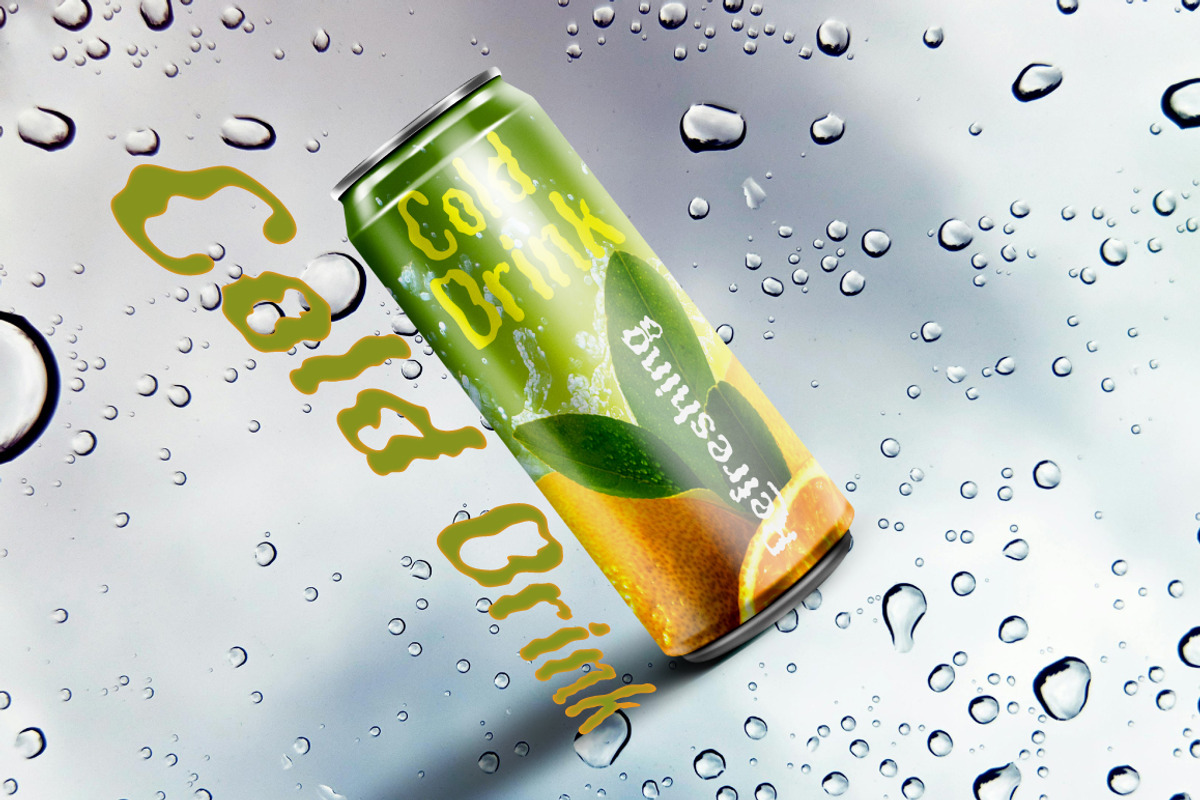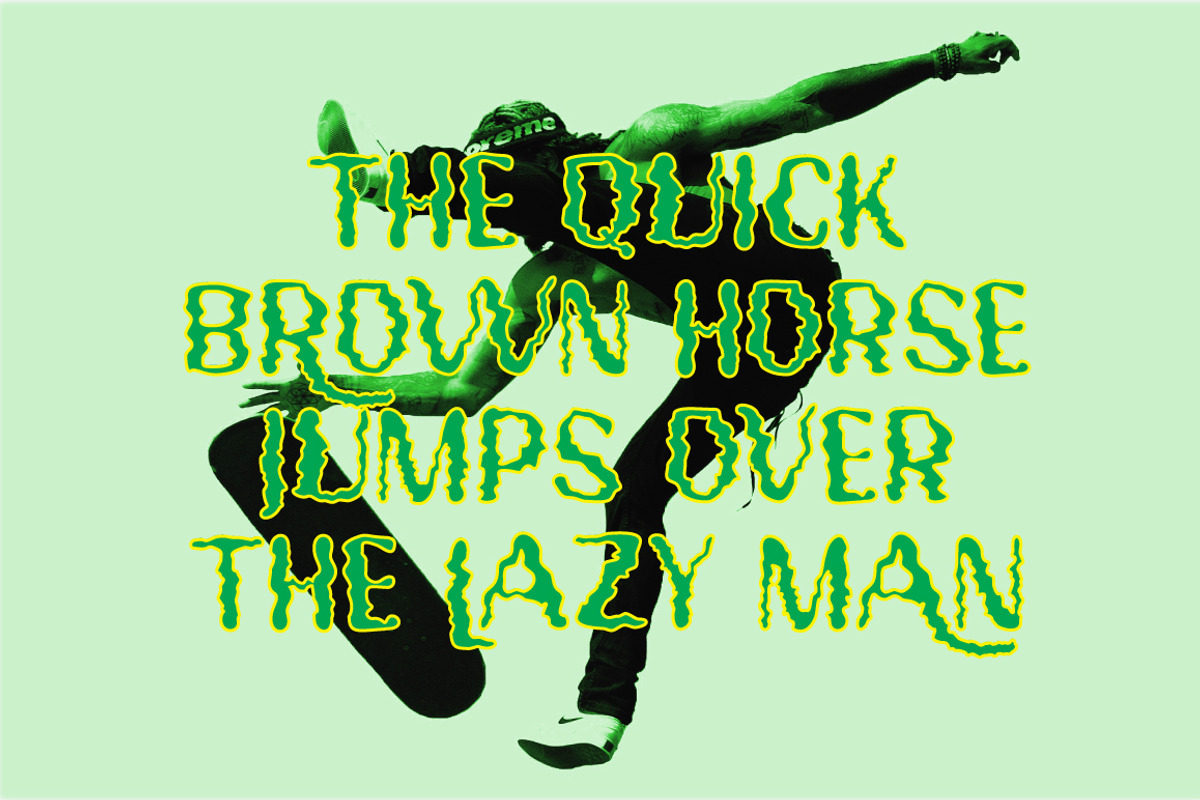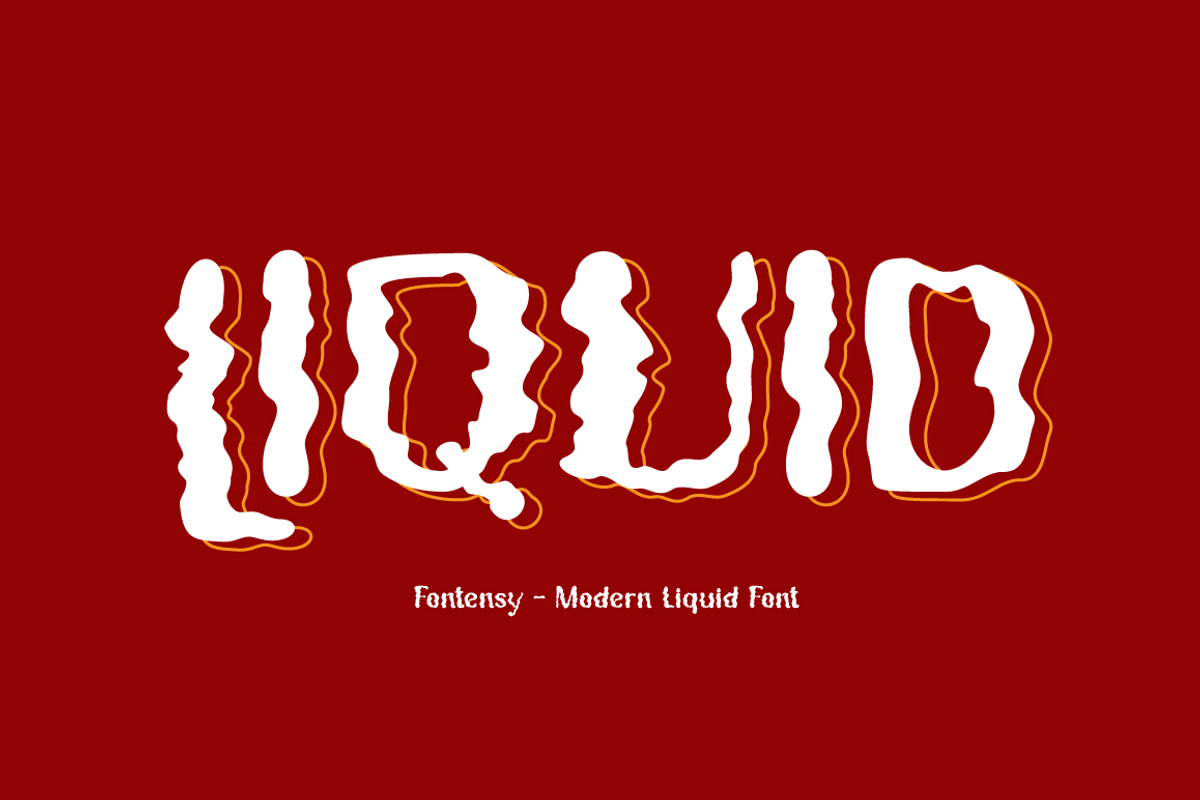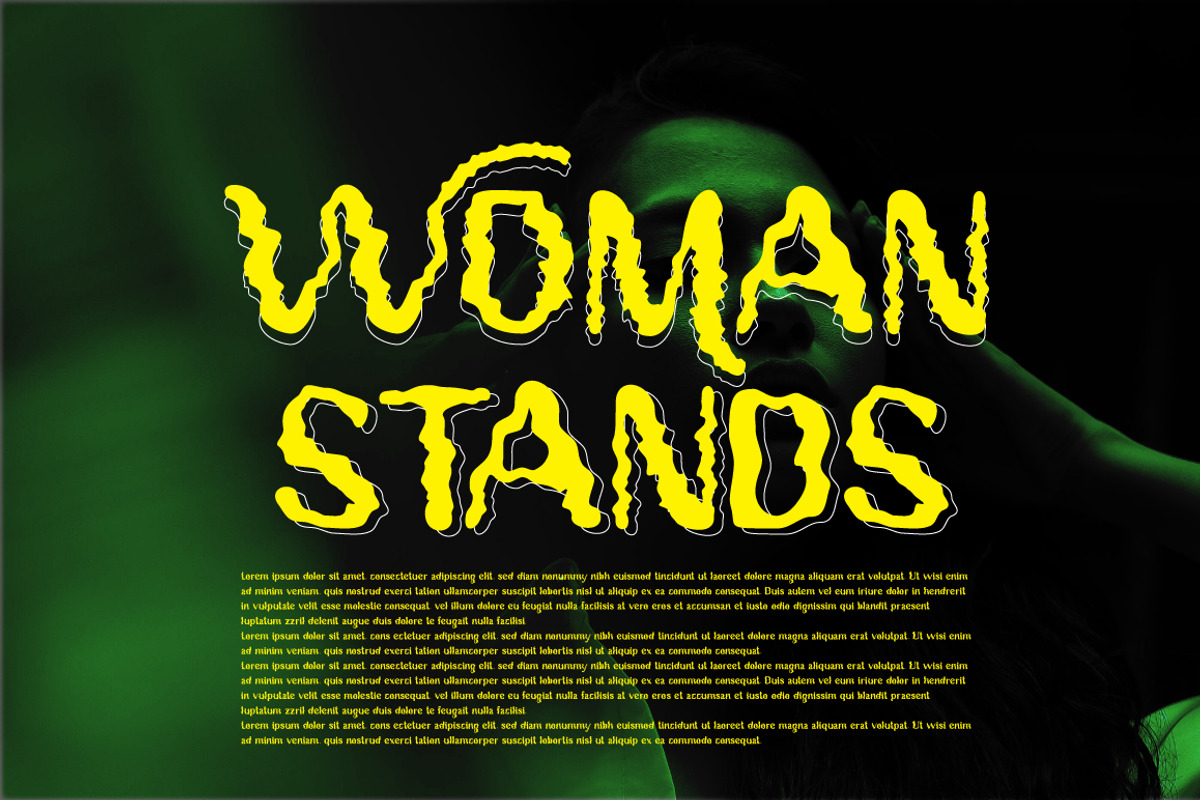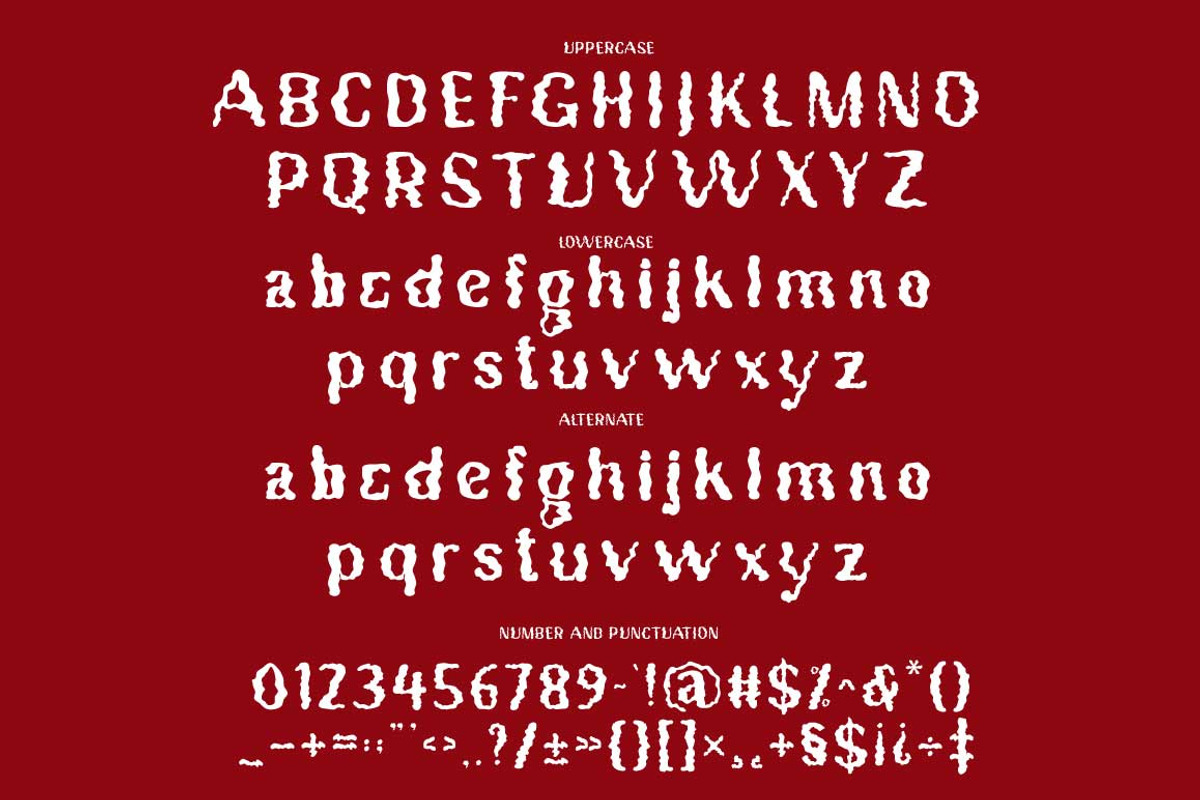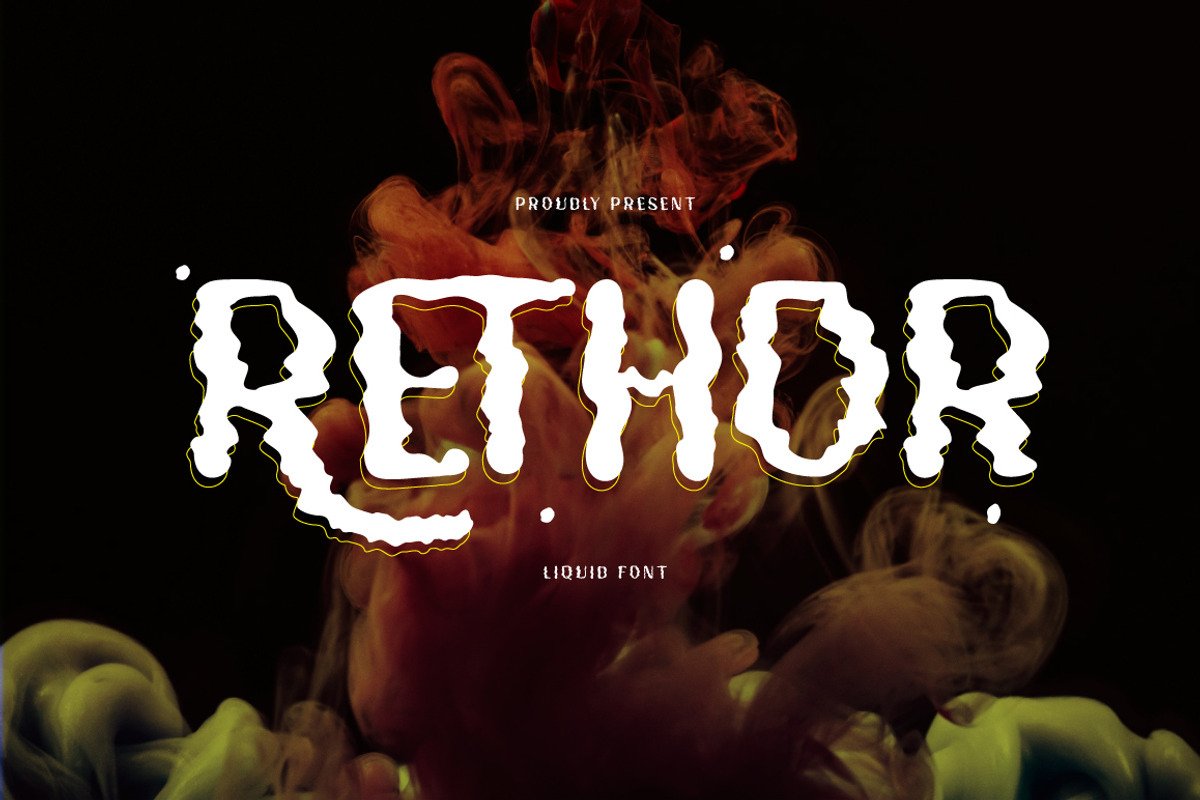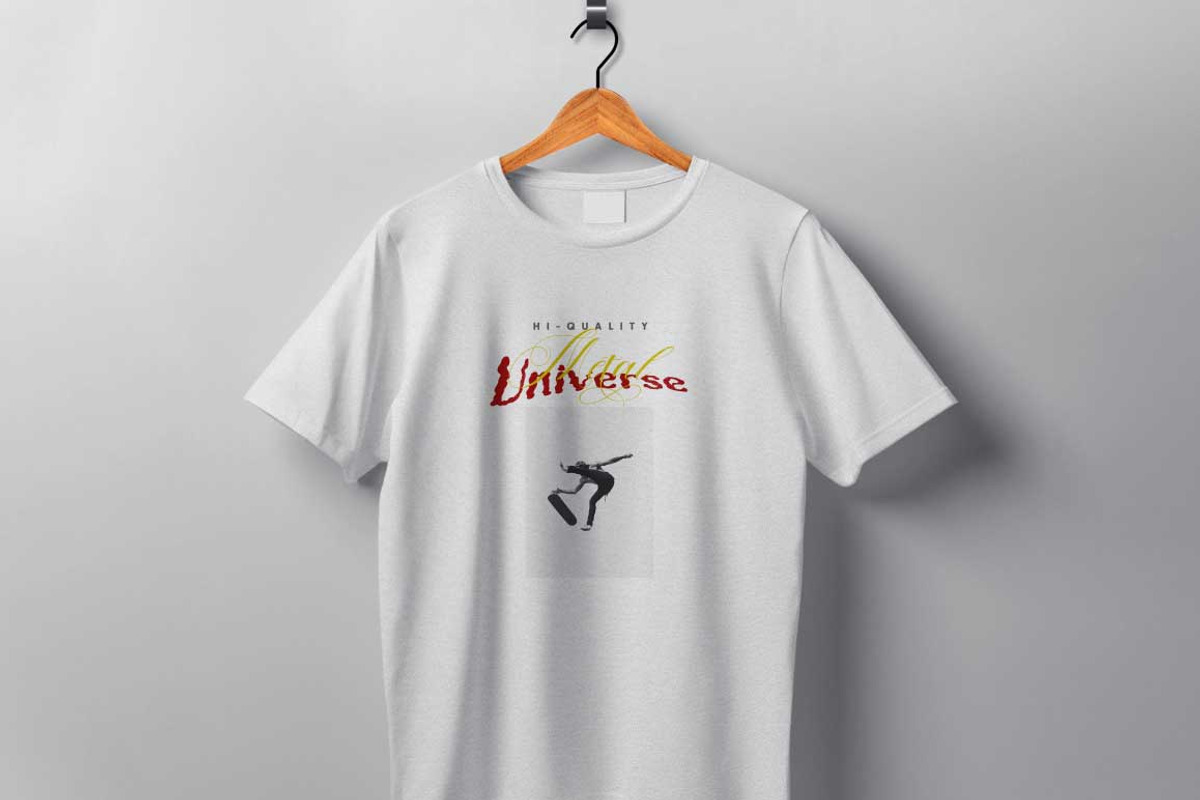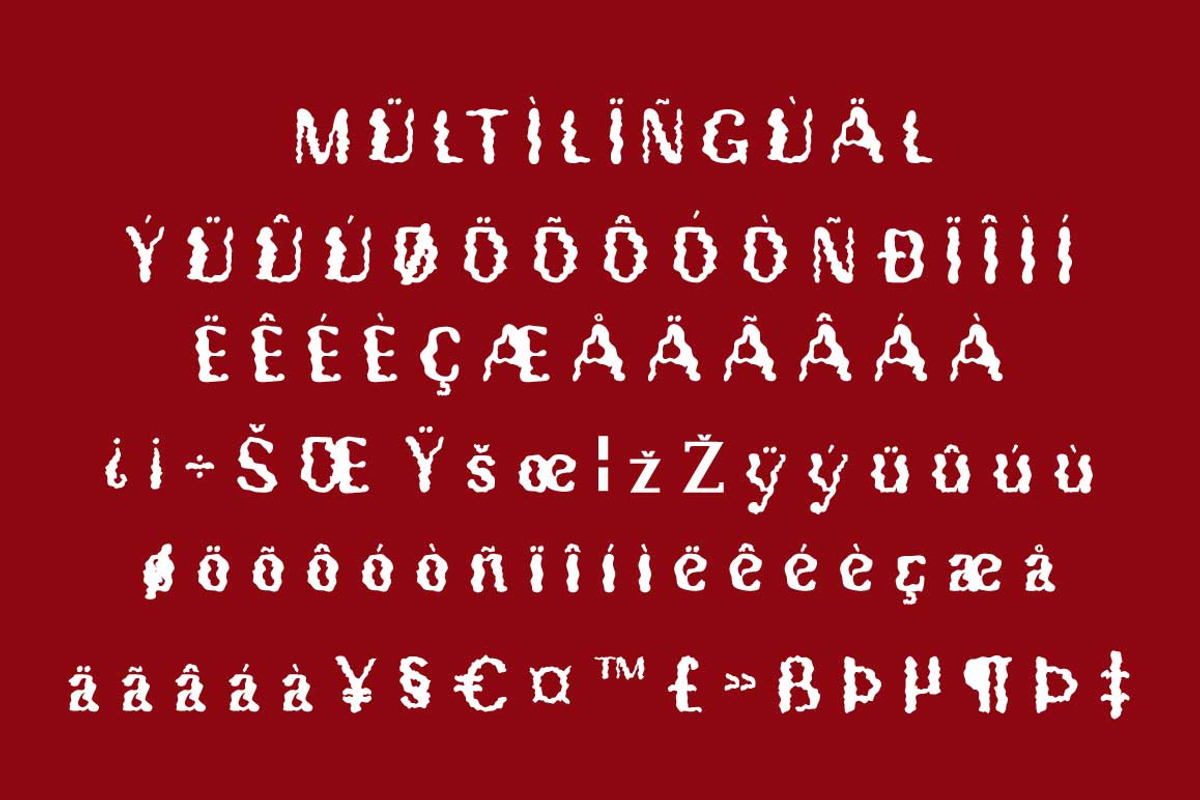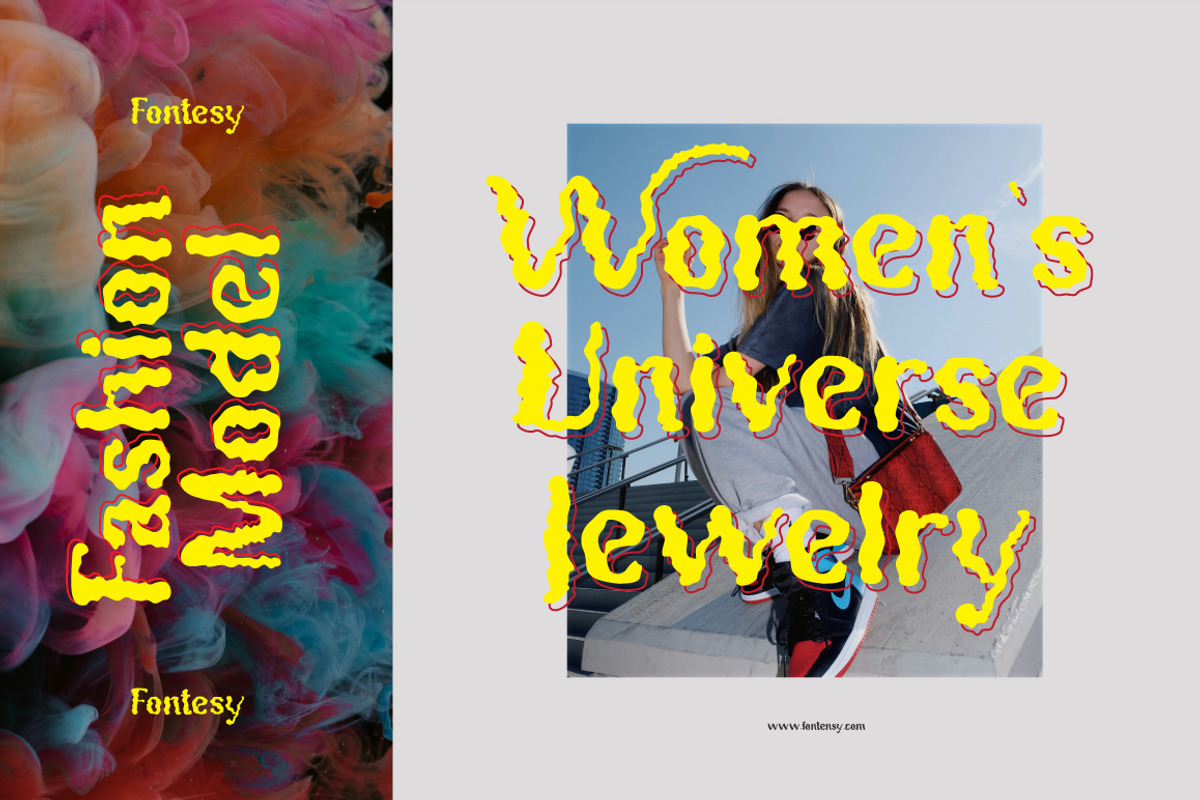
Rethor Liquid Font
Rethor is a hand-drawn font with a bouncy, funky, and fun style, originally inspired by the Y2K aesthetic. Perfect for posters, logos, t-shirts, flyers, prints, and other branding materials. Perfect for your personal or commercial projects.